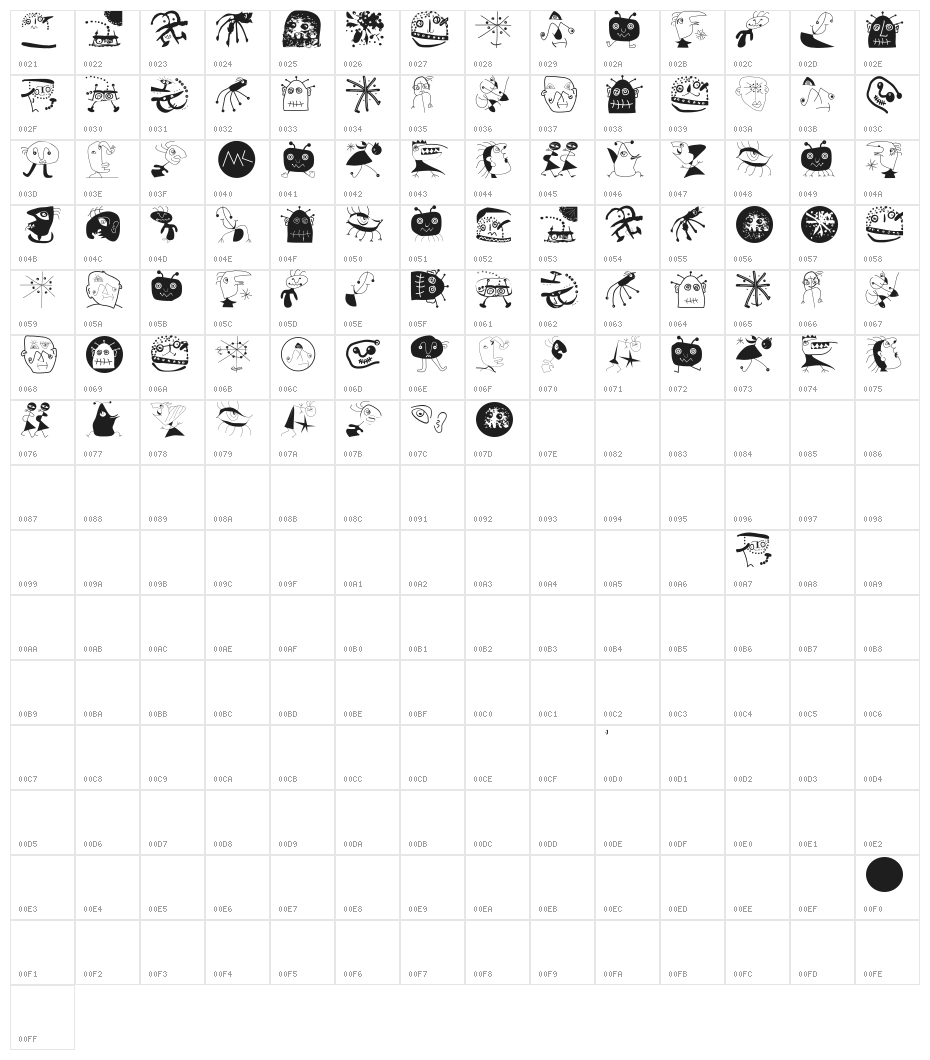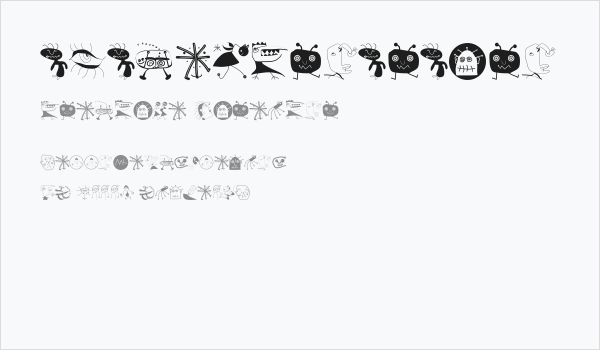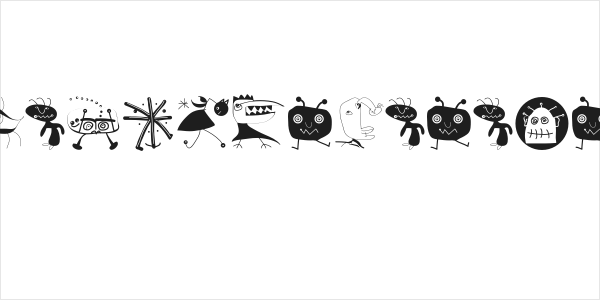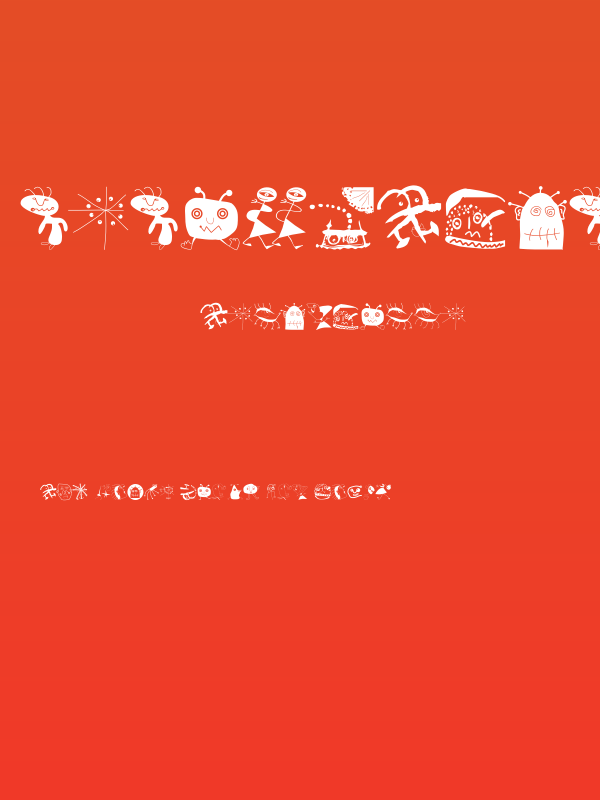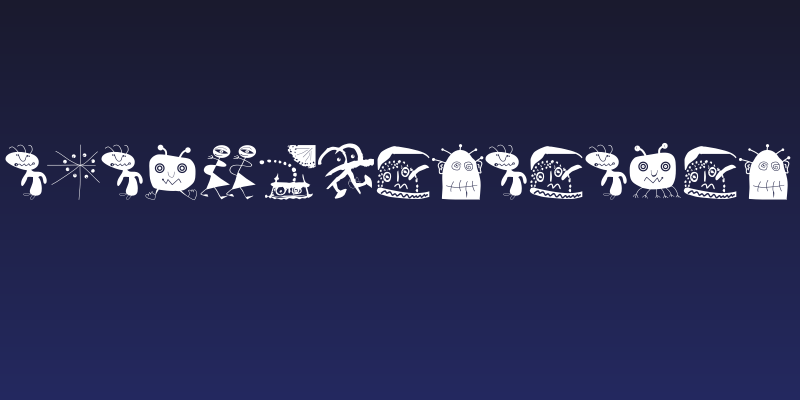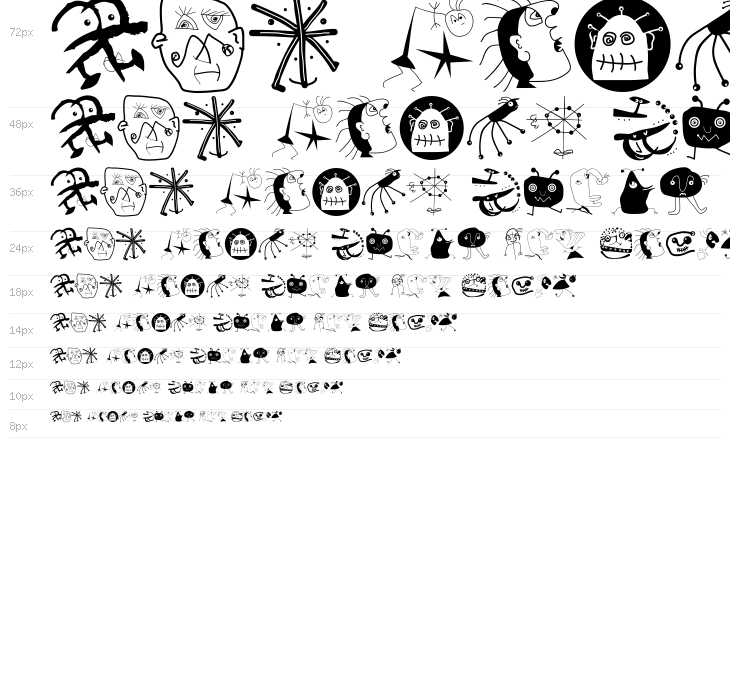
MyMaestroMrMiro Font
MyMaestroMrMiro Description
A highly decorative and whimsical font composed of abstract, playful, and surreal illustrations reminiscent of doodles or childlike drawings, featuring a variety of quirky characters, faces, and shapes with uneven line weights and a hand-drawn appearance.
| Overall Style | Decorative, Whimsical, Artistic |
| Use Case | Logos, Posters, Art projects, Children's media |
| Proposed Projects | Children's books, creative posters, album covers, art projects, branding for playful or artistic ventures. |